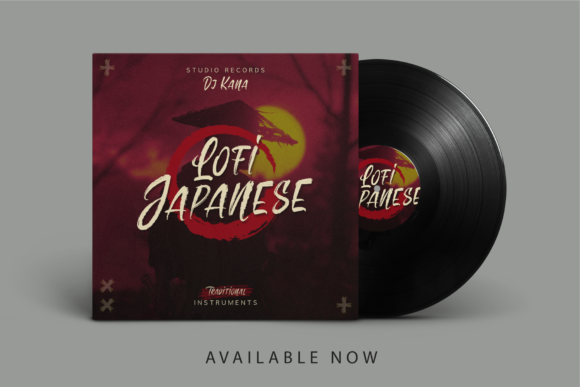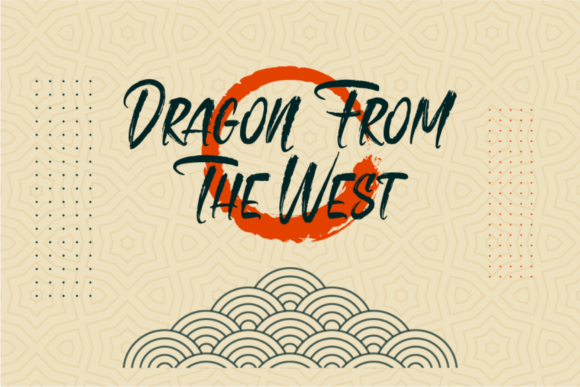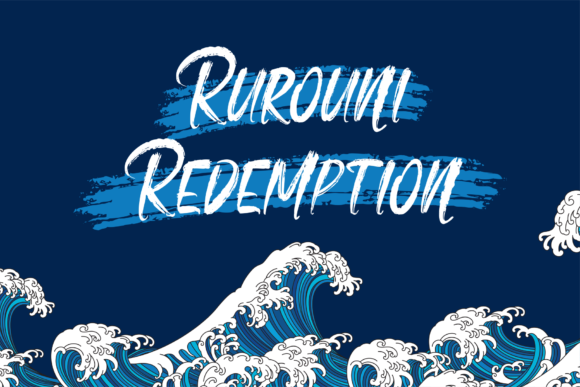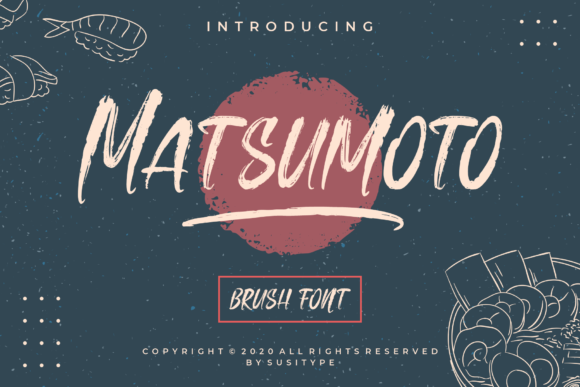
Introduction to Matsumoto Font
Matsumoto is a special handwritten font made in a brush style.
Use it to make your ideas even more realistic and create spectacular designs .
Why Choose Matsumoto Font?
Matsumoto Font offers exceptional quality and versatility, making it a valuable addition to your design toolkit. Whether you’re creating for personal projects or commercial use, Matsumoto Font delivers professional results.